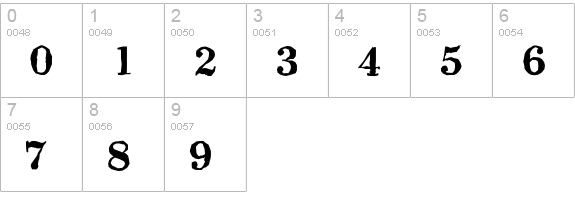
WichitaAntique-Bold is a strong, high-contrast variant in the WichitaAntique typeface family \xE2\x80\x94 well suited to headlines, attention-grabbing titles, and strong calls-to-action.
WichitaAntique-Bold font is a timeless and elegant typeface that exudes a sense of vintage charm and sophistication. Its bold and distinctive letterforms make it perfect for adding a touch of classic flair to your designs. Whether you're working on invitations, posters, or branding projects, WichitaAntique-Bold font will make a statement with its unique character. And the best part? WichitaAntique-Bold font is available for free download at FontsMarket.com! That's right, you can easily enhance your projects with this stunning font without any cost. Don't miss out on the opportunity to elevate your designs with the beauty and grace of WichitaAntique-Bold font. Download it today and let your creativity shine!